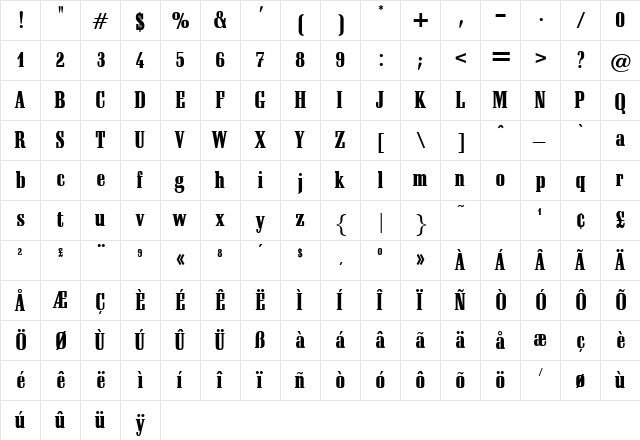
Shattuck Regular Font Preview
Shattuck Regular
Shattuck Regular Font Details
Design Context for Shattuck Typeface
Shattuck offers clean, dependable letterforms without strong stylistic allegiance, making it a practical choice for designers who need flexibility.